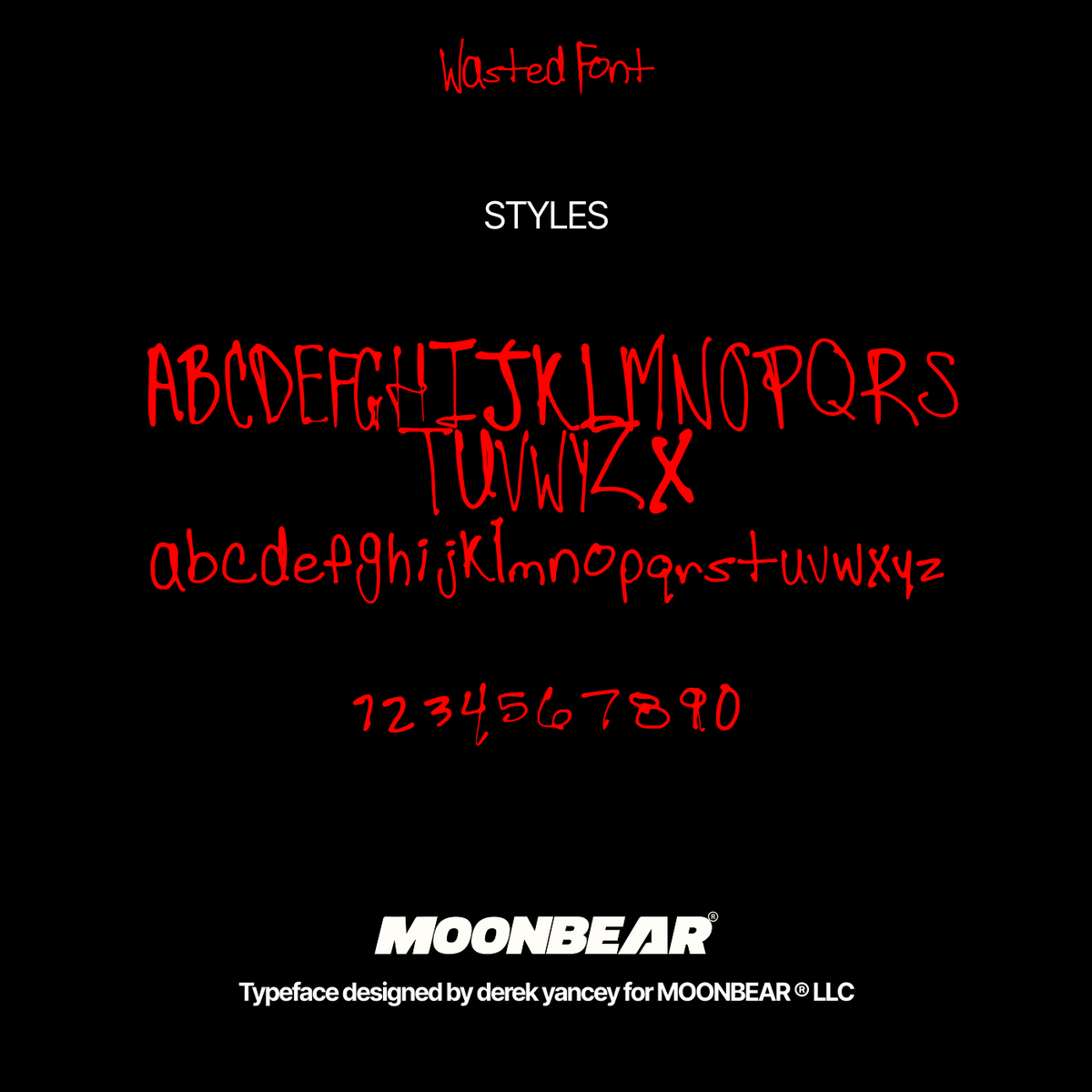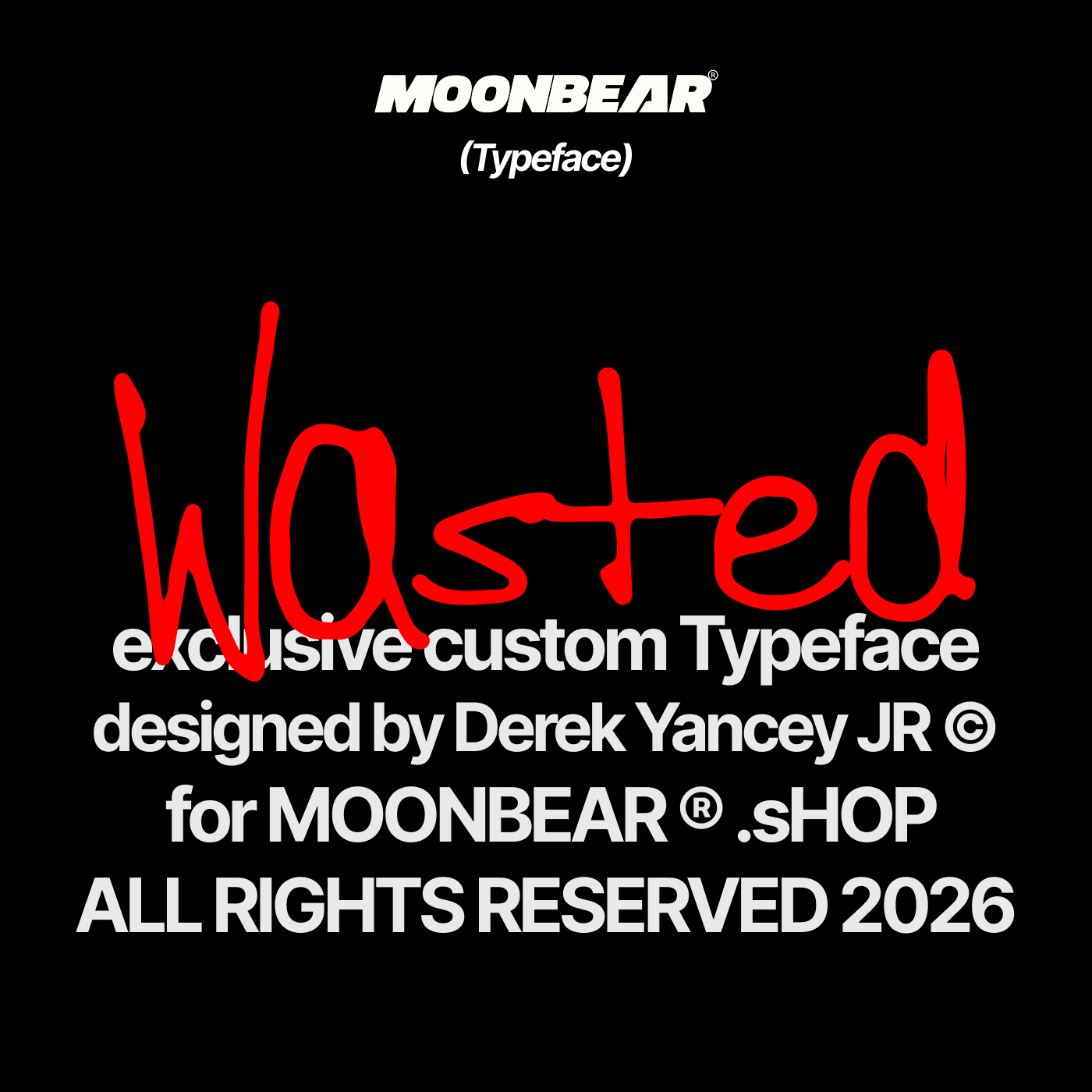
Wasted Font
Display Font
Wasted is a messy, brush-scrawled typeface that looks written fast by hand. Good for music video titles, lyric edits, cover art and anything that needs raw energy.
• Uppercase, lowercase and numbers